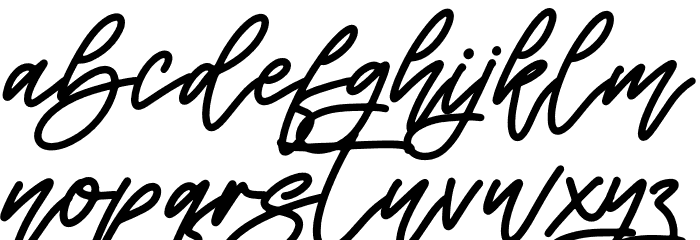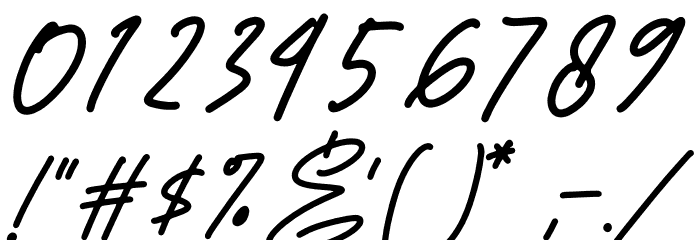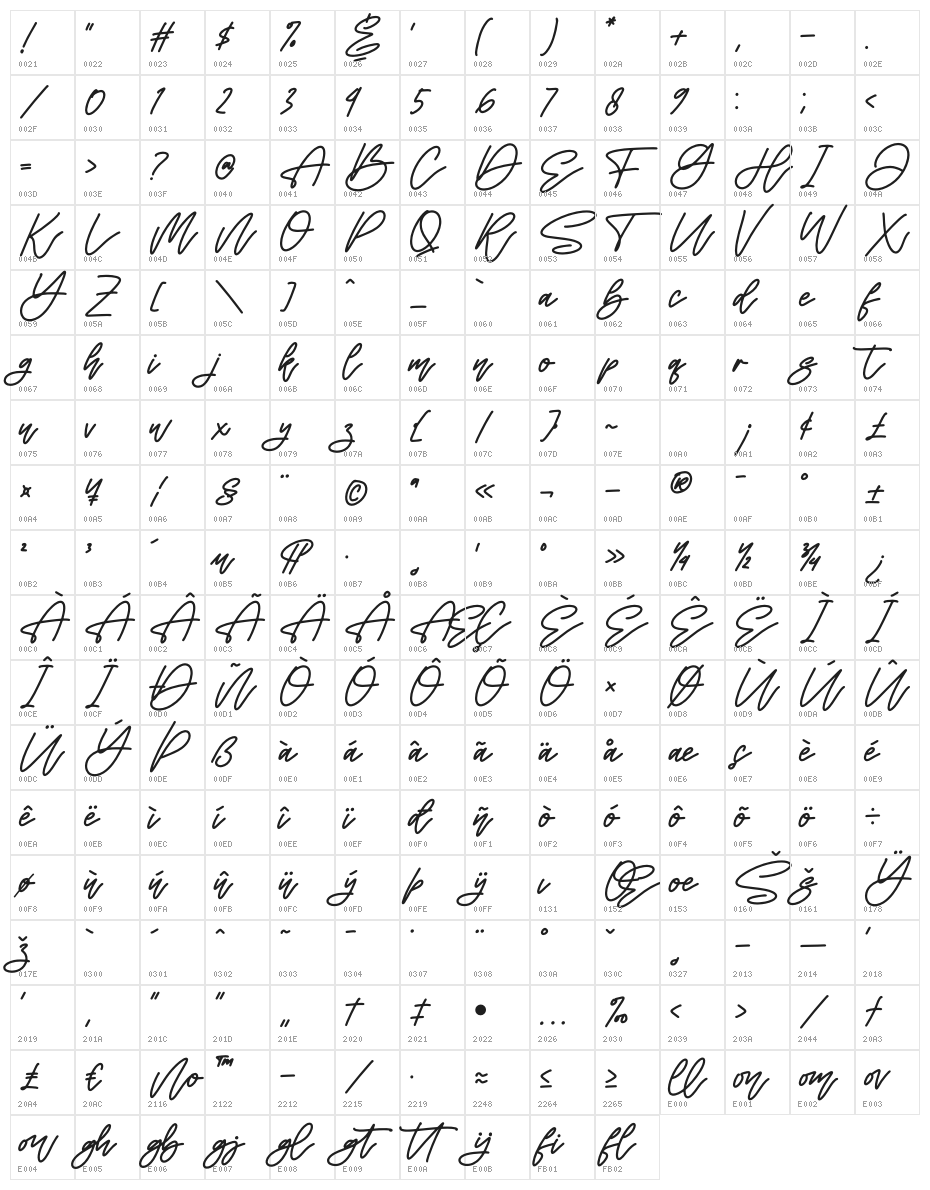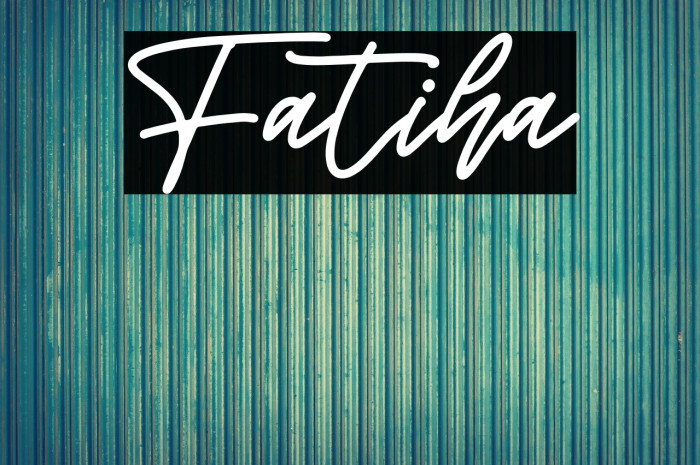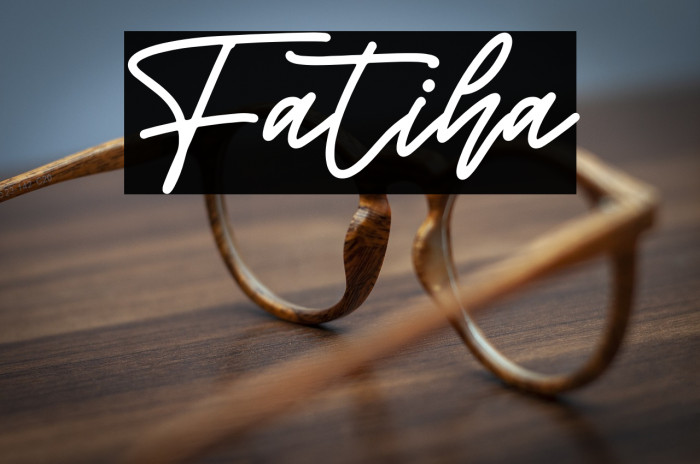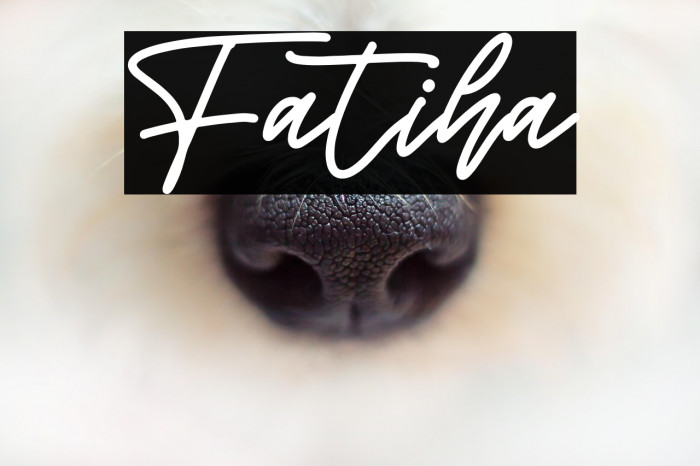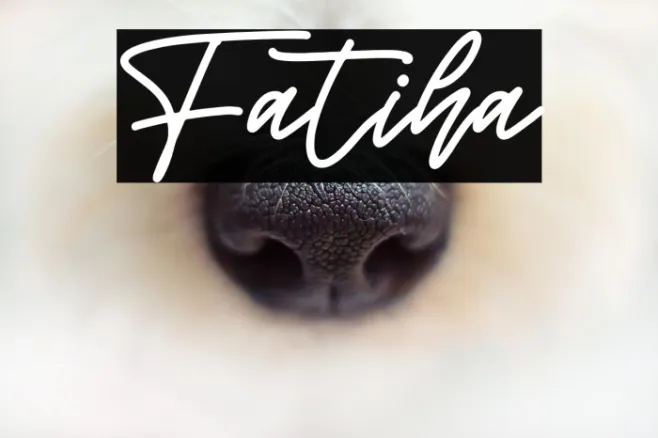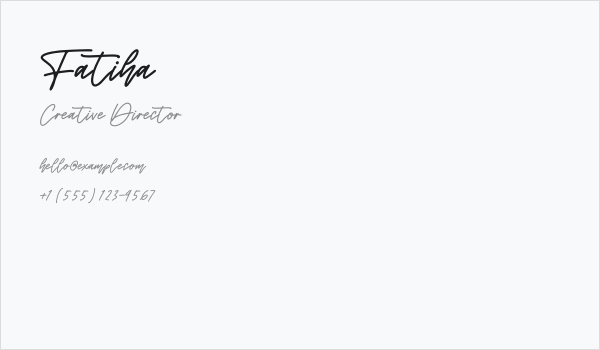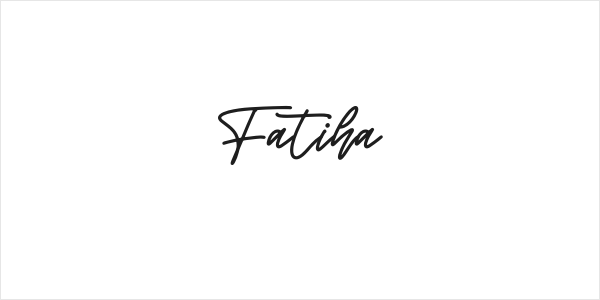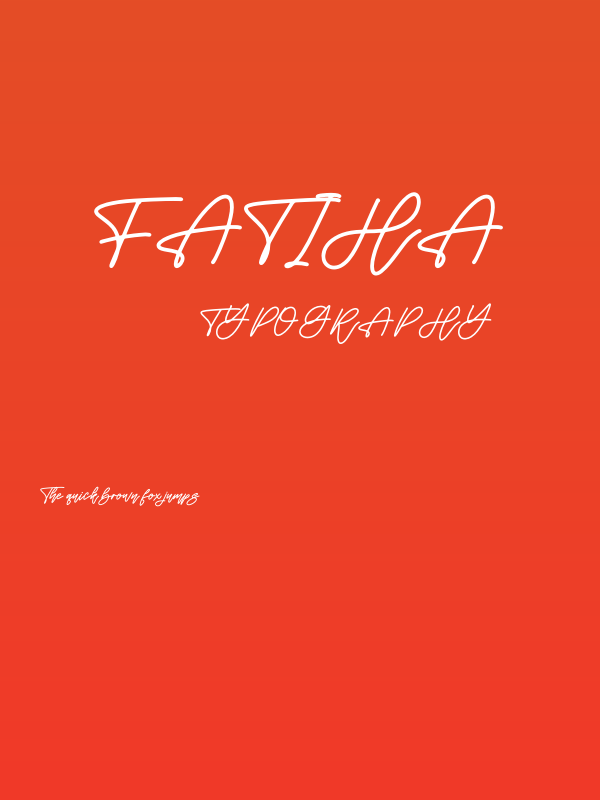
Fatiha Font
This font features a dynamic and fluid script style, characterized by its elegant, flowing lines and cursive letterforms. The uppercase and lowercase letters are seamlessly connected, creating a sense of movement and grace. The strokes are bold and confident, with a slight slant that adds to the overall sense of motion. The numerals and special characters maintain the same fluidity, ensuring consistency across all elements. This font exudes a sense of sophistication and creativity, making it ideal for projects that require a personal touch.
A dynamic and fluid script font with elegant, flowing lines.
- Proposed Projects: Ideal for wedding invitations, branding, personal stationery, and artistic projects that require a touch of elegance and creativity.
- Use Case: Logos, Invitations, Artistic projects